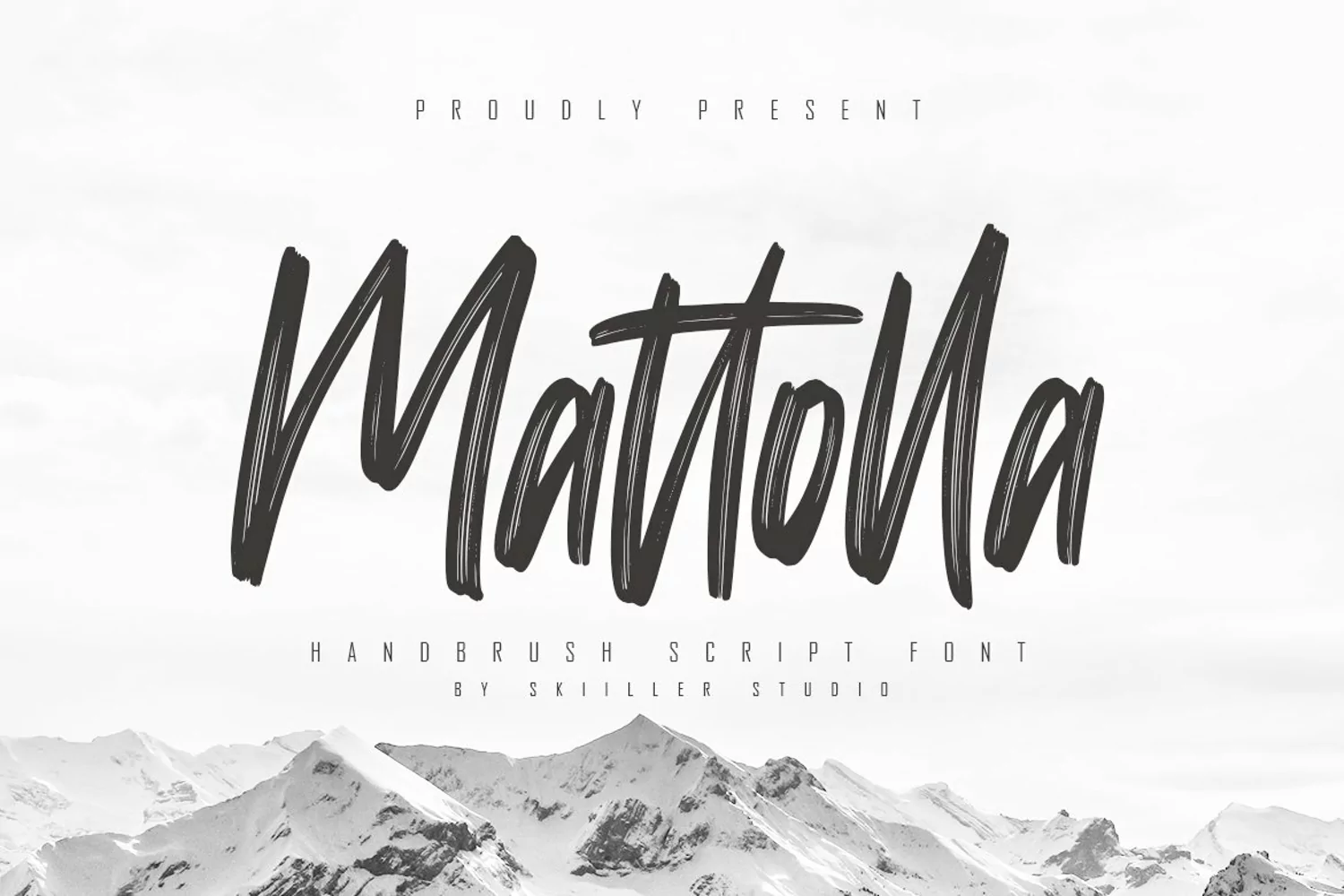
Mattolla - Handbrush Script
Mattolla
Mattolla is a natural handmade textured brush text font with an irregular base line. Suitable for use in title design. Such as , films, quotes, branding, logos, and others.